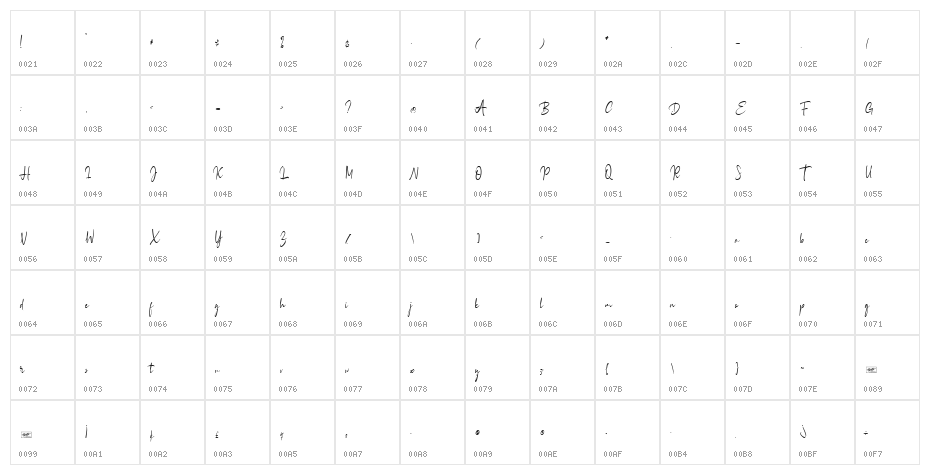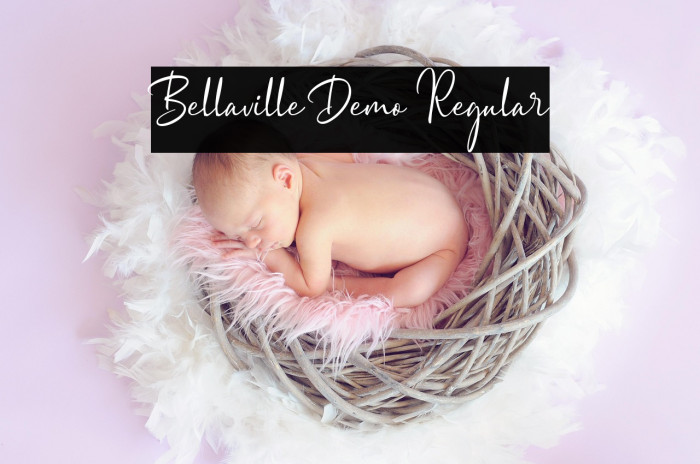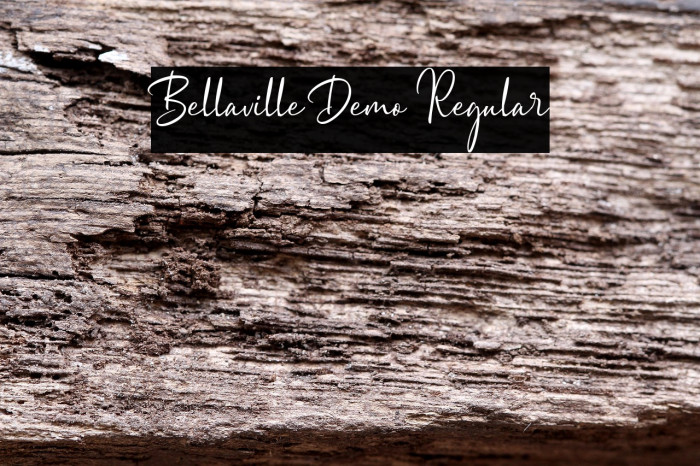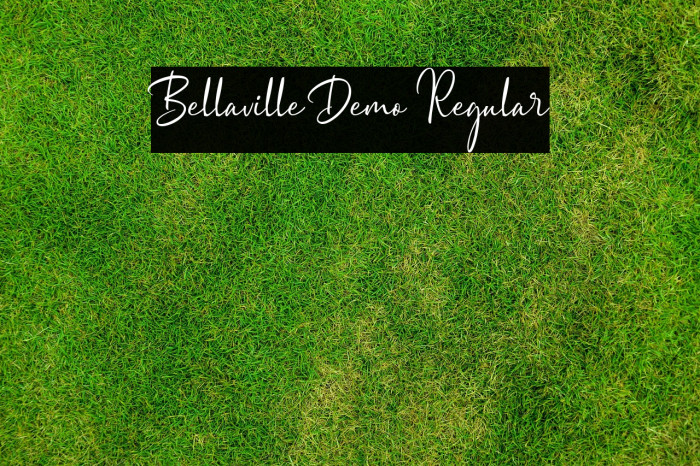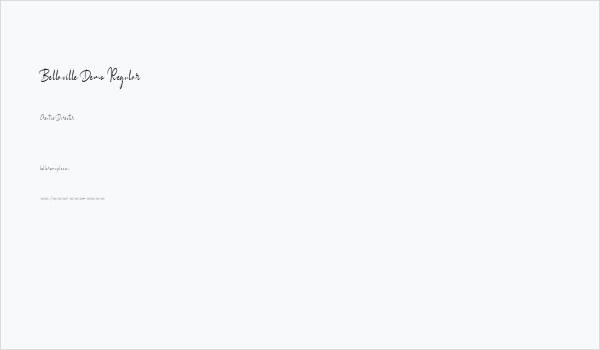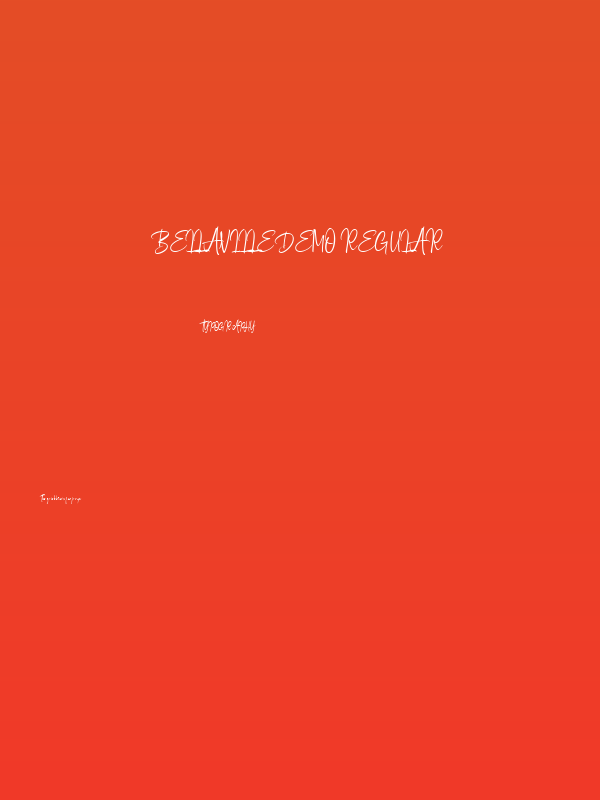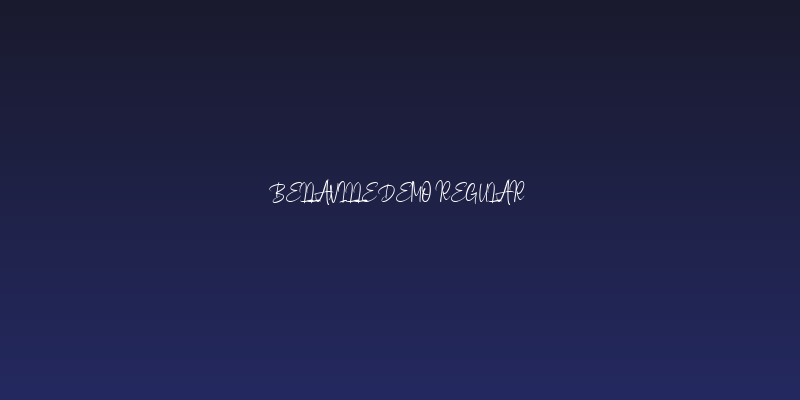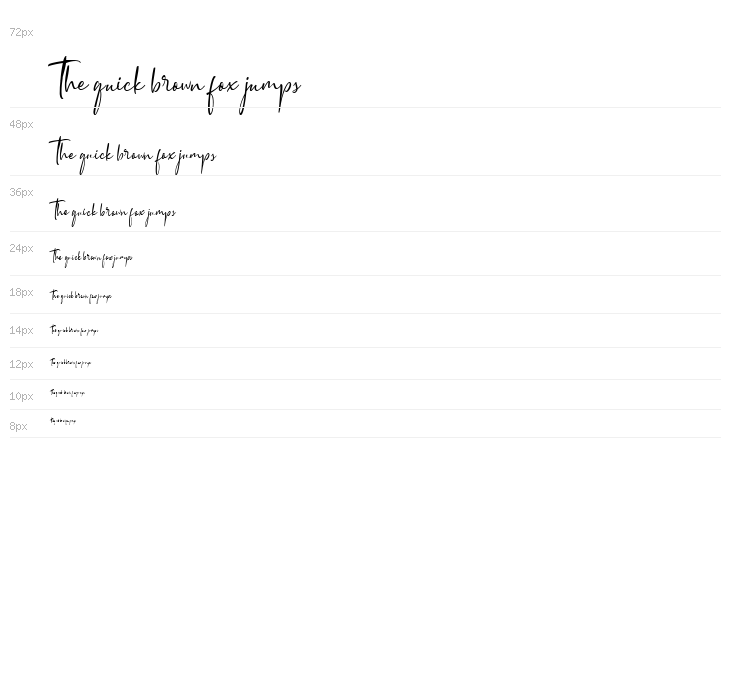
Bellaville Demo Regular Font
Bellaville Demo Regular Description
A flowing, handwritten script font with elegant, elongated strokes and a casual yet sophisticated appearance.
| Use Case | Logos, Headlines |
| Proposed Projects | Invitations, greeting cards, branding, social media graphics. |